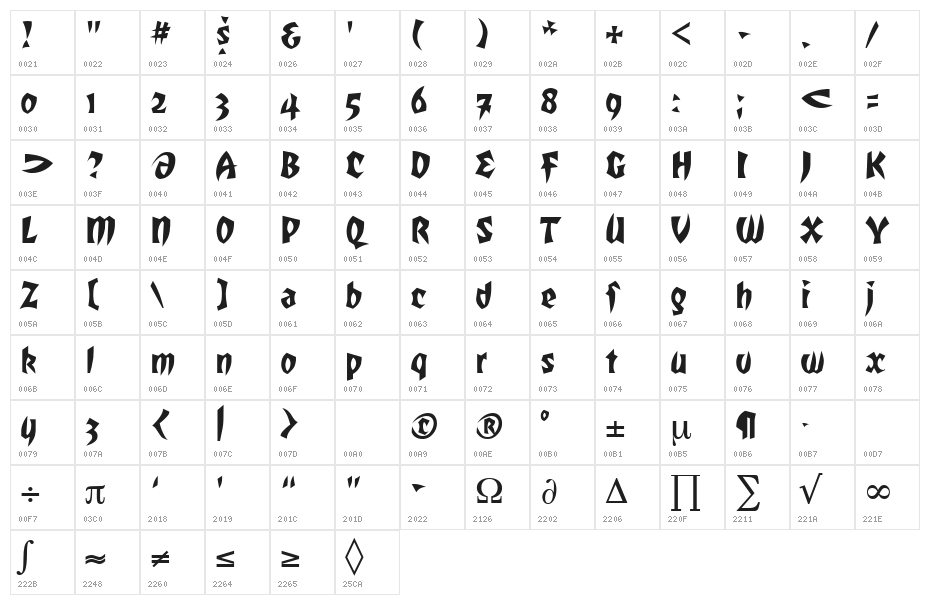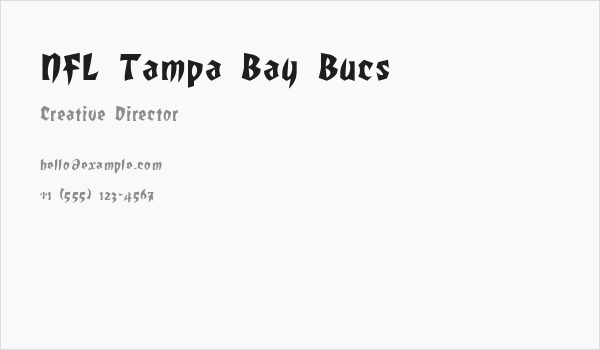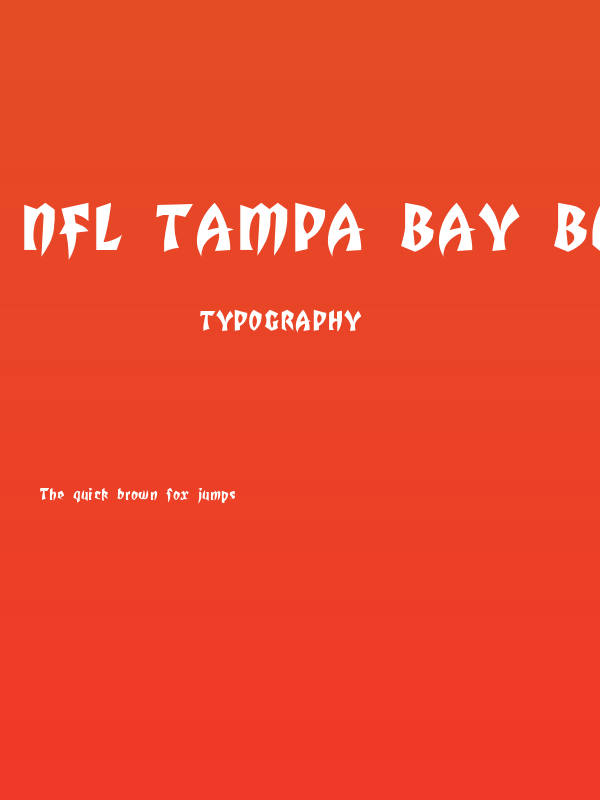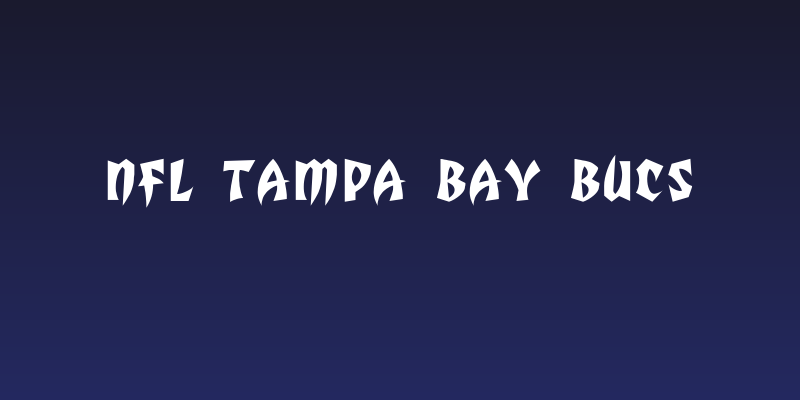
NFL Tampa Bay Bucs Font
NFL Tampa Bay Bucs Description
This font features a bold and dynamic style with sharp, angular edges and a strong presence. The characters are designed with a distinct gothic influence, reminiscent of traditional blackletter typefaces. The uppercase and lowercase letters maintain a consistent style, with exaggerated serifs and pointed terminals that give the font a fierce and aggressive look. The numbers and special characters follow the same design principles, ensuring a cohesive appearance across all elements. This font is ideal for projects that require a bold and impactful visual statement.
| Proposed Projects | Perfect for sports team branding, event posters, merchandise design, and any project needing a bold, impactful typeface. |